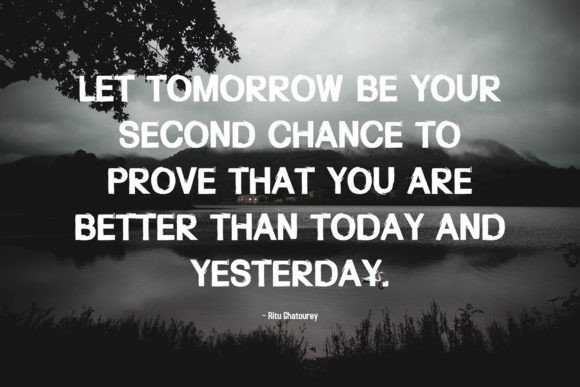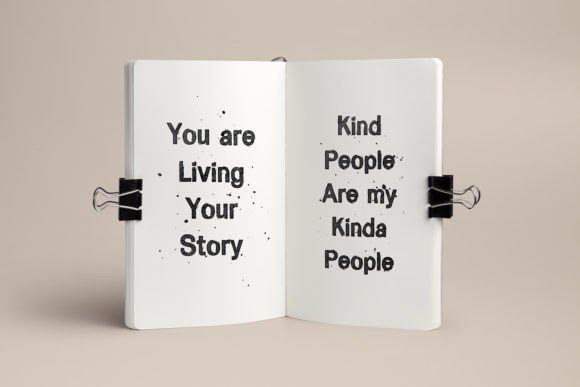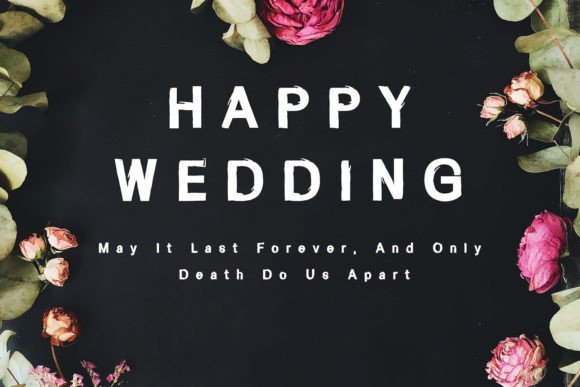
Introduction to Parizaad Font
Do you remember that moment when you stumbled upon the perfect font that made your design come alive? For designers, finding the right font can be a game-changer. It’s like discovering a secret ingredient that elevates your creative project from good to great. And if you’re looking for a font that adds a touch of personality to your work, look no further than the Parizaad Font.
With its unique blend of hand-drawn brush strokes and bold letterforms, the Parizaad Font is a high-quality design resource that’s perfect for adding a creative twist to your projects. Whether you’re working on a branding campaign, packaging design, or a web layout, this font is sure to make a statement. And the best part? You can download it for free, making it an invaluable addition to your design toolkit.
Whether you’re a seasoned designer or just starting out, the Parizaad Font is a valuable asset to have in your design arsenal. Its transparent background and versatility make it easy to use in a wide range of applications, from quotes and titles to magazine headings and web layouts. So why wait? Dive into the world of creative possibilities with the Parizaad Font and take your designs to the next level.
Key Features of Parizaad Font
- High-quality design resource for creative projects: The Parizaad Font is a premium design element that can elevate any project with its unique and stylish typography.
- Unique and creative typography: The Parizaad Font features a unique and creative typography that can add a touch of elegance and sophistication to any design project.
Honest Review: Parizaad Font
As a designer, I’m always on the lookout for high-quality fonts that can elevate my creative projects. The Parizaad Font is one such find, and I’m excited to share my thoughts on it.
One of the standout features of the Parizaad Font is its unique design. It’s a beautiful, elegant font that’s perfect for creating a sophisticated and refined look. I’ve used it in several projects, and it always adds a touch of class.
Here are some of the things that work well with the Parizaad Font:
- Unique and elegant design
- High-quality and detailed typography
While the Parizaad Font is an excellent choice for many designers, there are a few limitations to be aware of:
- May not be suitable for bold or heavy text
- Can be difficult to read at small font sizes
- Limited character set (no Cyrillic or Greek support)
Overall, I’m impressed with the Parizaad Font. It’s a high-quality design resource that’s perfect for a wide range of creative projects. With its unique design and transparent background, it’s an excellent choice for designers who want to add a touch of elegance to their work.